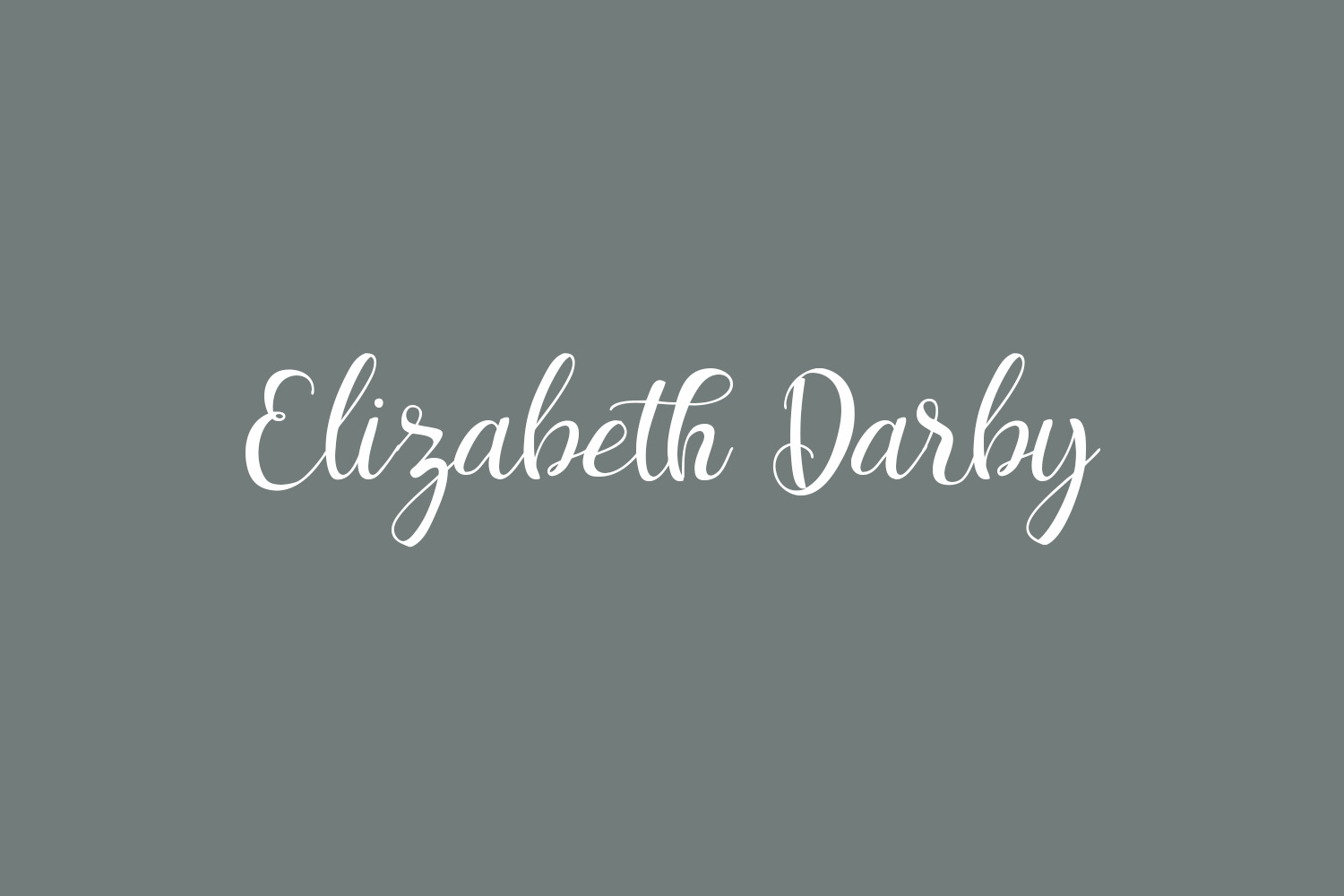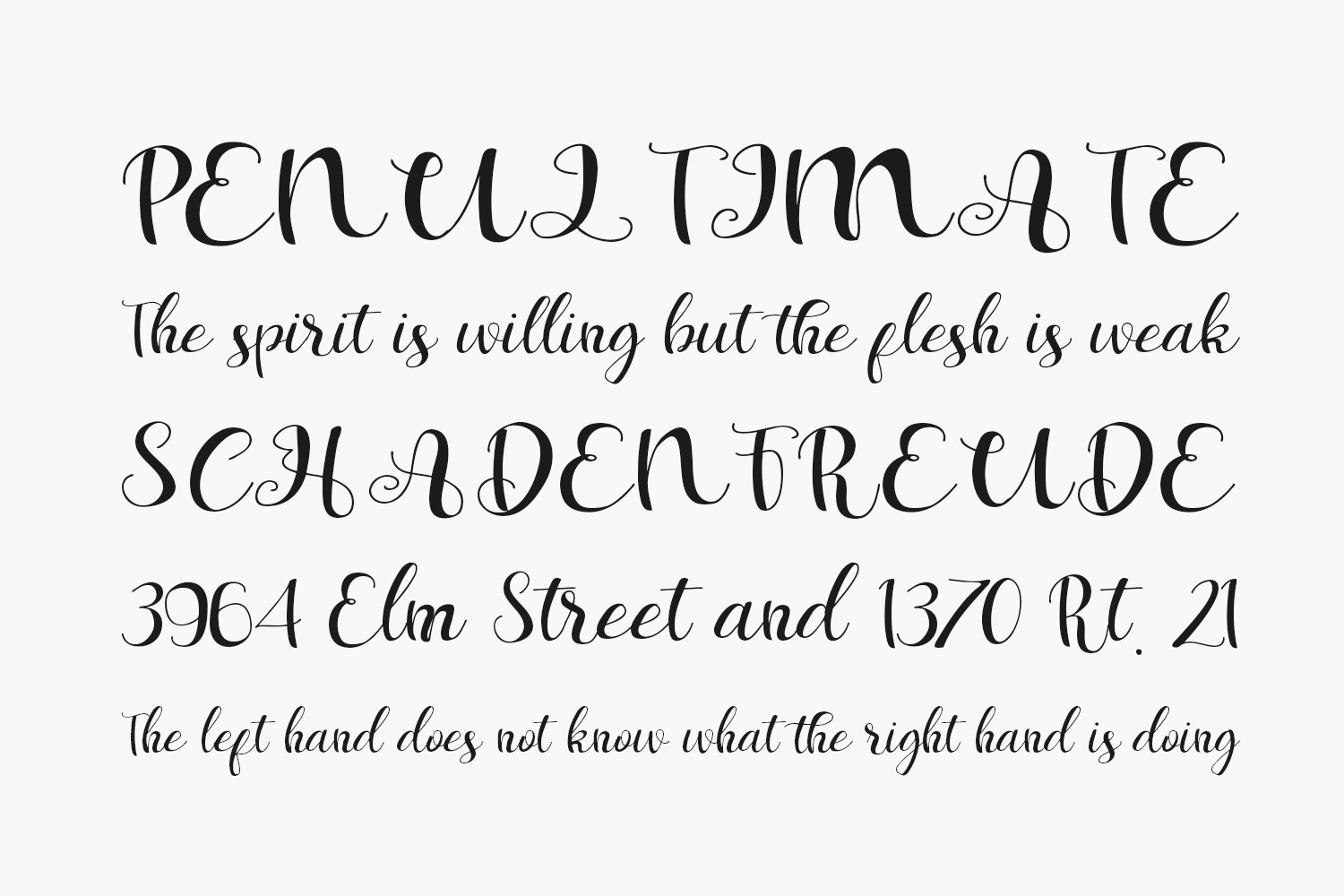
Elizabeth Darby Free Font is a modern script font created with a collection of elegant characters to suit your most exquisite designs. This typeface works amazingly on branding projects, logo designs, digital lettering arts, t-shirt/apparel, posters, magazines, signs, advertising designs, and more. Elizabeth Darby Free Font was designed by Staircase Studio and is free for personal use only. Please purchase the full version for commercial use.